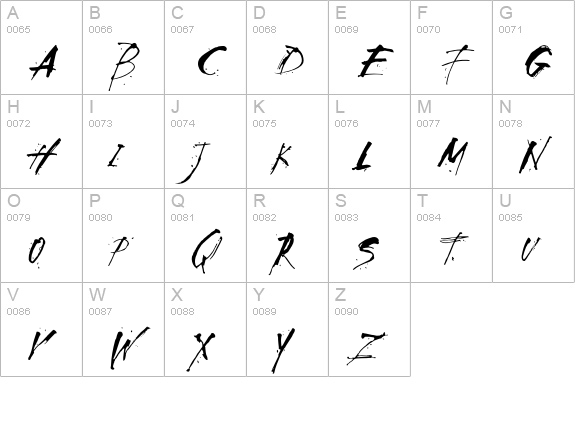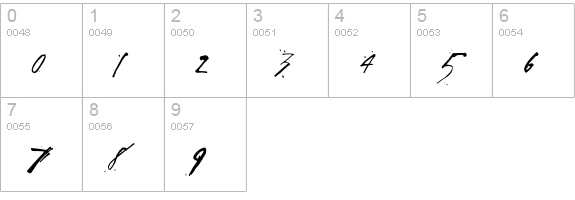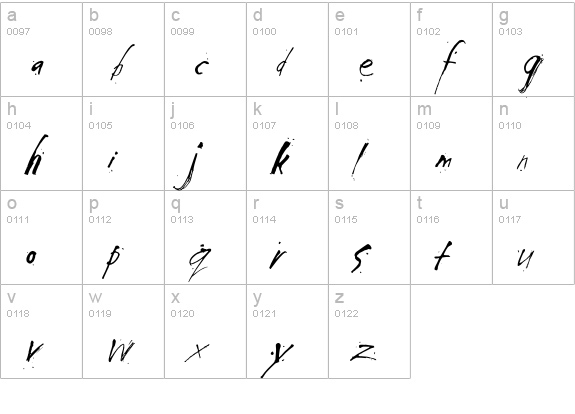
Smack Std Font Details
Introducing Smack Std, a stylish and contemporary font that is sure to leave a lasting impression on any design project. This versatile typeface combines sleek lines with bold strokes, creating a captivating visual experience for both print and digital media. With its modern and edgy aesthetic, Smack Std exudes confidence and sophistication. Its unique letterforms are carefully crafted to create a harmonious balance between elegance and impact. Whether used for a logo, headline, or body text, this font delivers a powerful message that commands attention. What sets Smack Std apart is not only its impeccable design, but also its accessibility. It is available for free download at FontsMarket.com, making it easily accessible to designers, creatives, and enthusiasts alike. This means that you can elevate your projects without breaking the bank, as Smack Std offers a high-quality and professional solution at no cost. With Smack Std, you can unleash your creativity and explore the endless possibilities of typography. Its versatility allows it to adapt to various design styles and themes, making it a valuable asset for any project. Whether you're creating a sleek and modern website, designing eye-catching posters, or even crafting captivating social media graphics, Smack Std will effortlessly elevate your design to new heights. So why wait? Embrace the freedom of Smack Std and let your imagination run wild. Download this incredible font for free at FontsMarket.com and unlock a world of design possibilities. With Smack Std, you have the power to make a statement and captivate your audience with every letter.